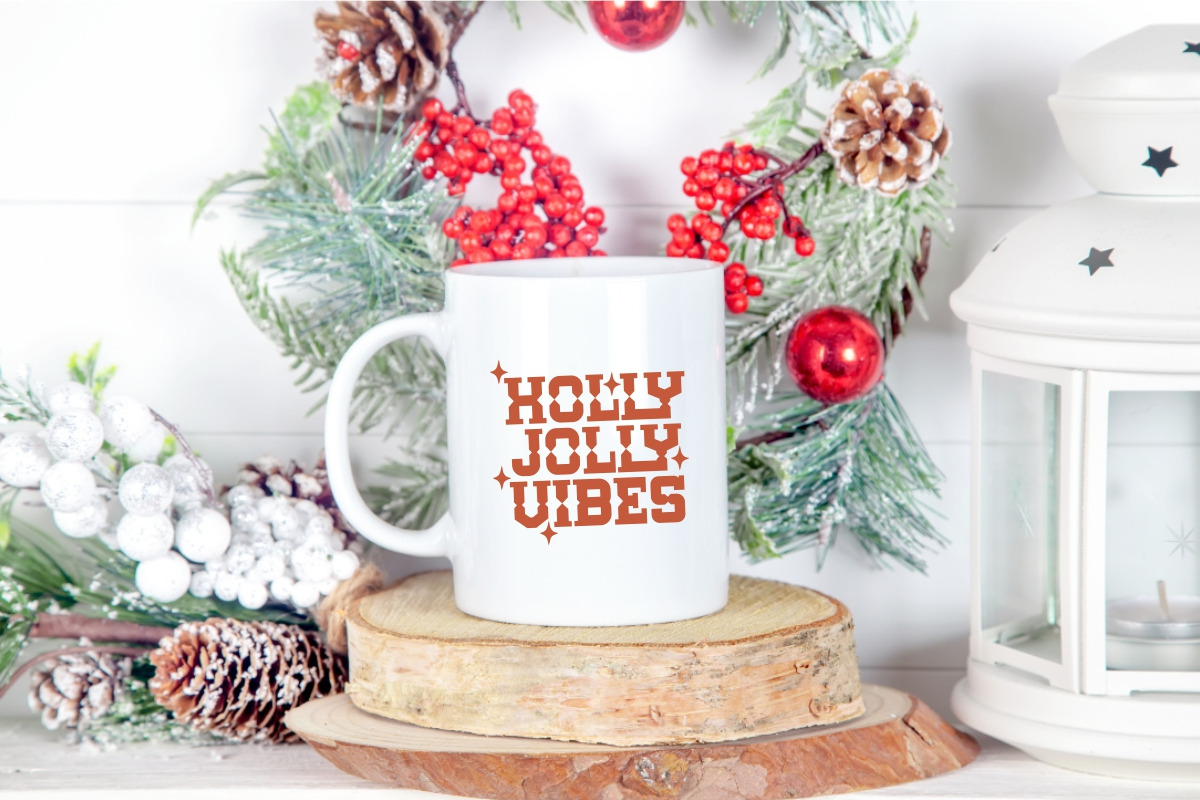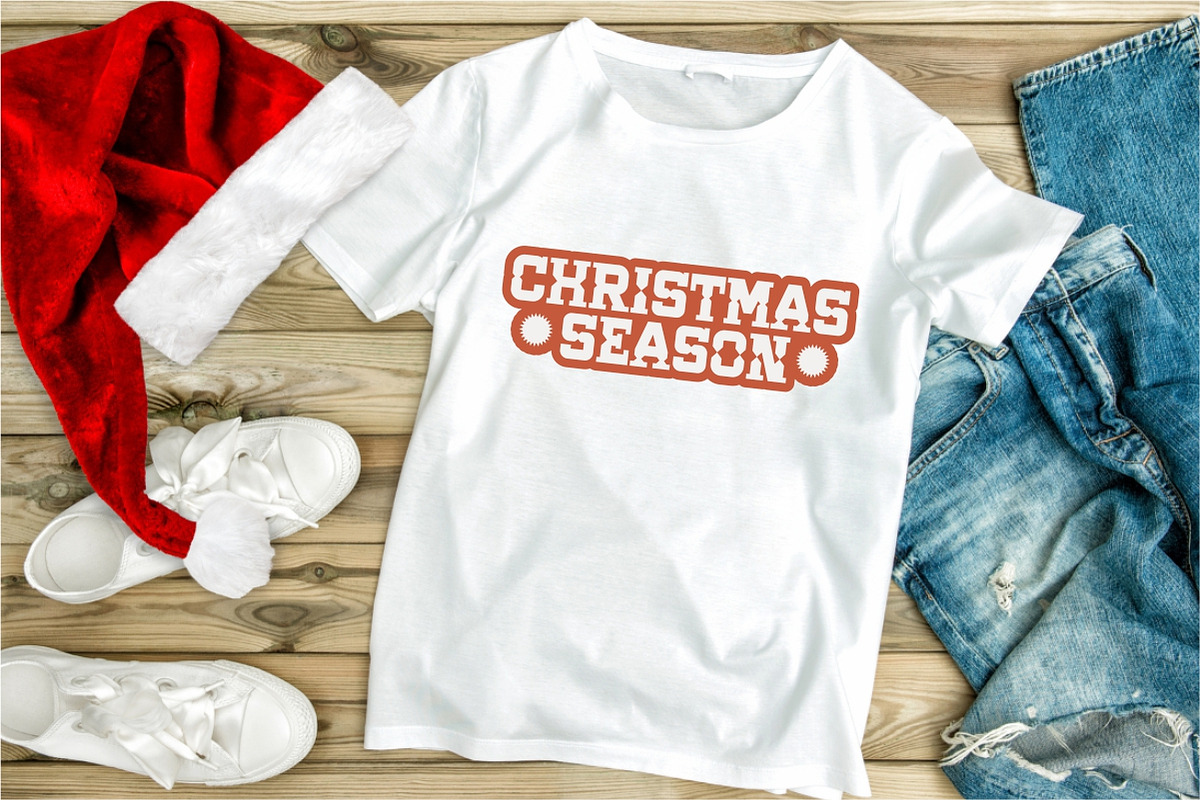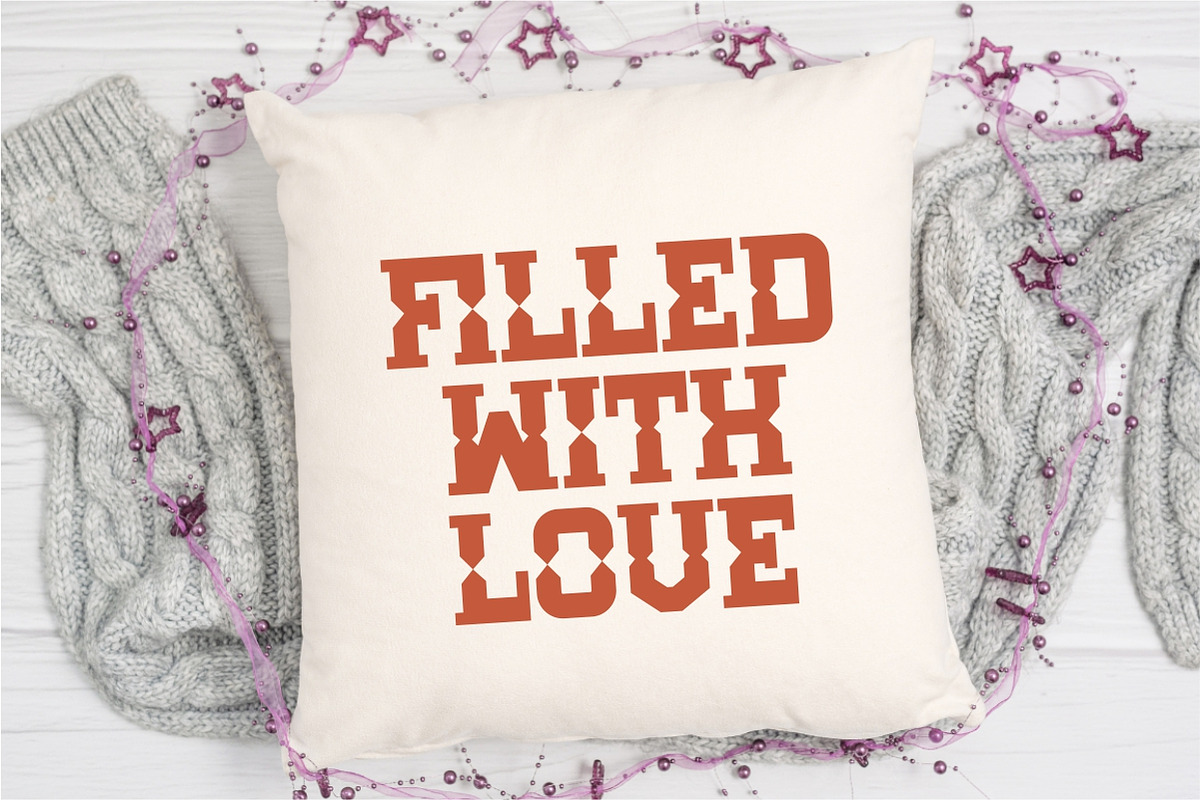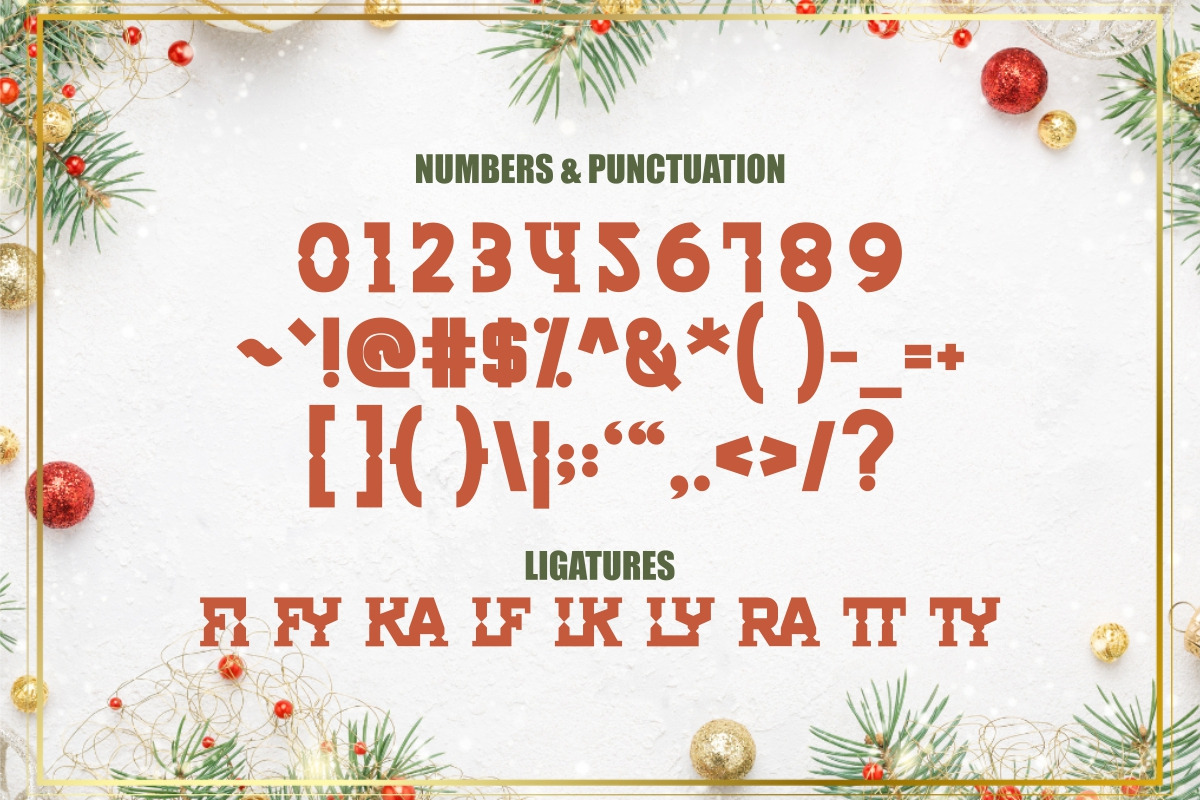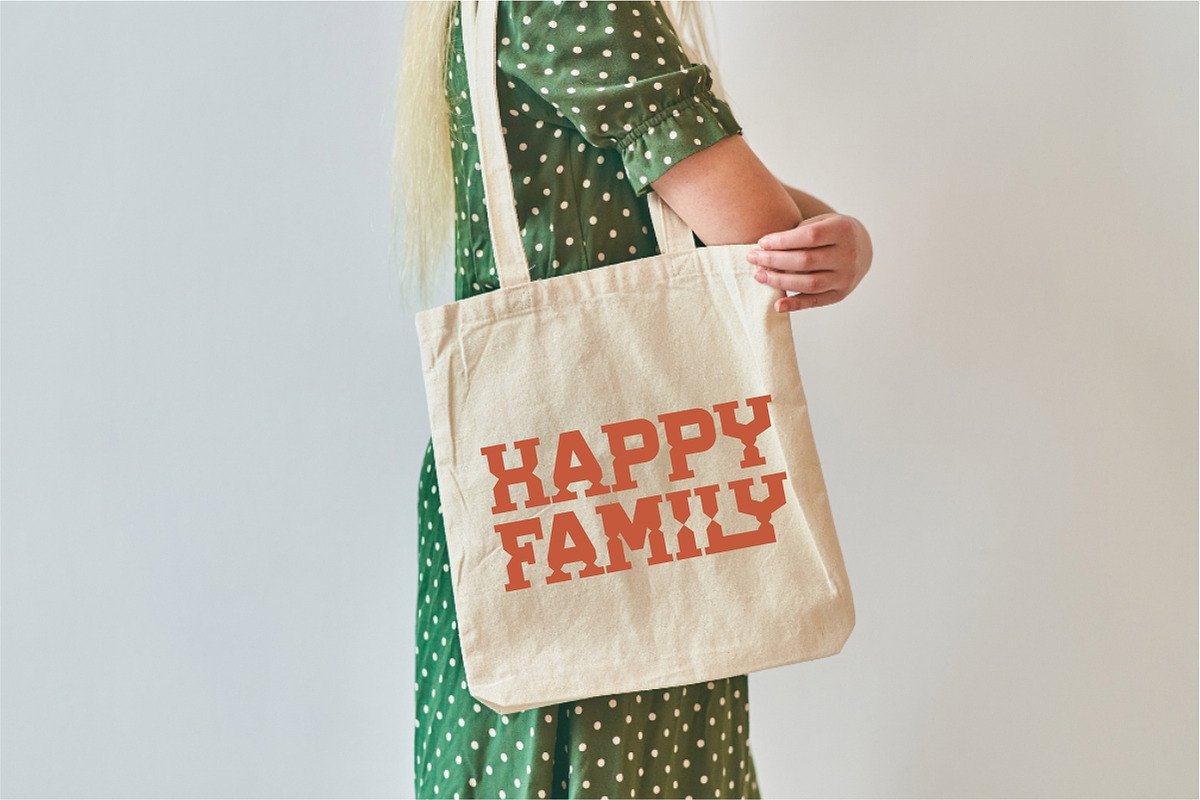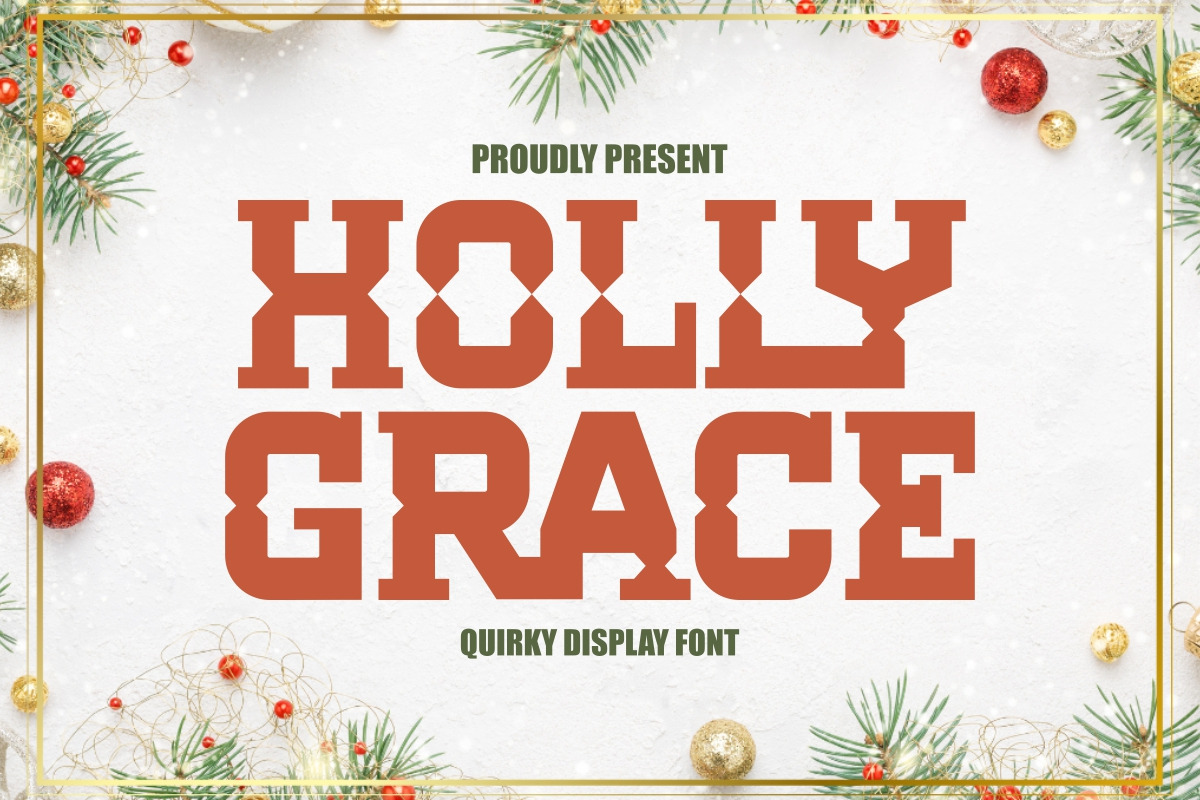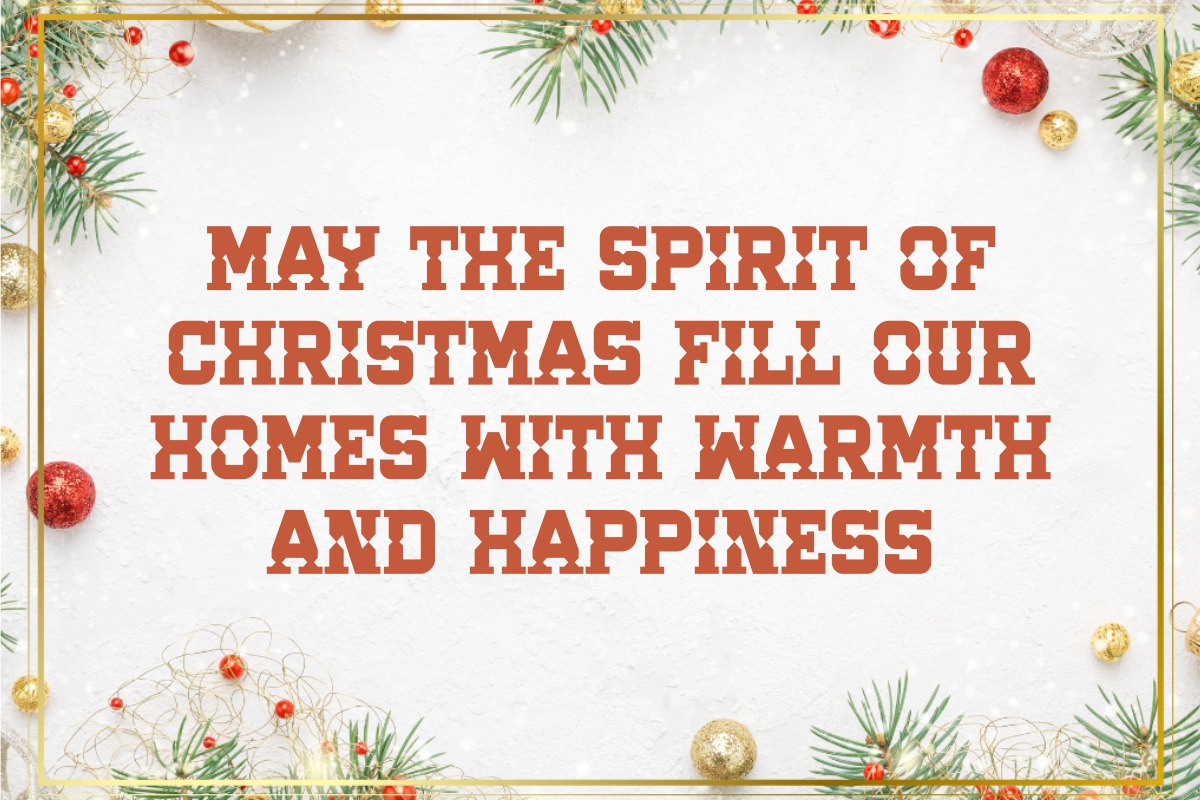
Holly Grace - Quirky Display Font
Holly Grace is a bold and quirky display Christmas font that blends the spooky vibes of Halloween with the festive cheer of Christmas. Its unique design makes it perfect for creating eye-catching apparel mockups, including t-shirts, sweaters, mugs, tote bags and pillows.